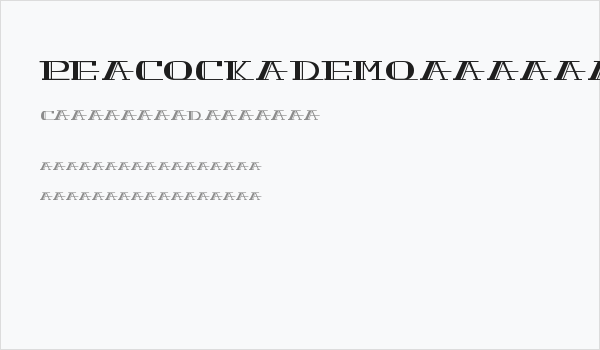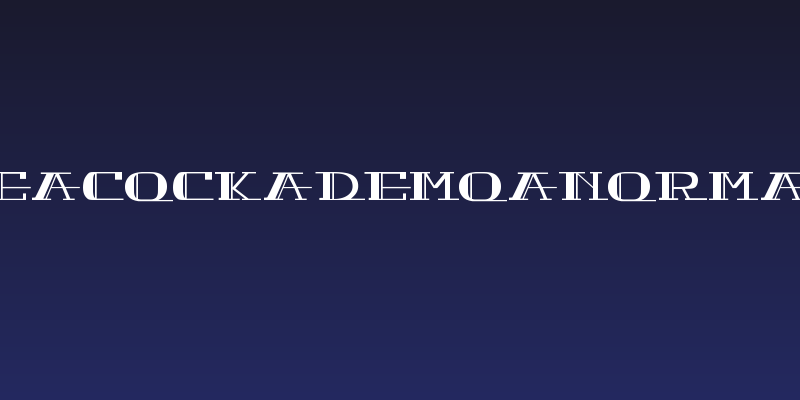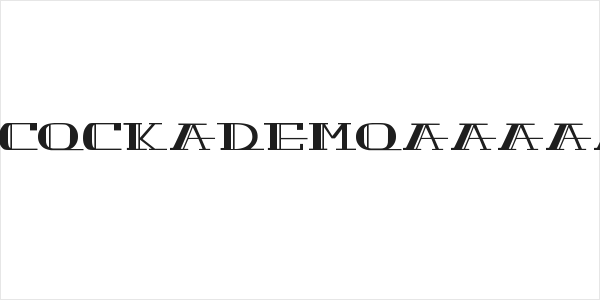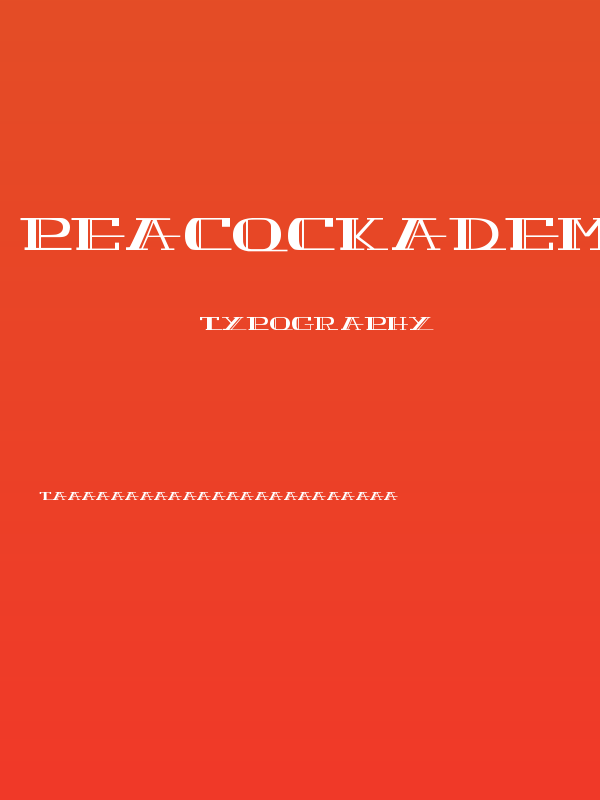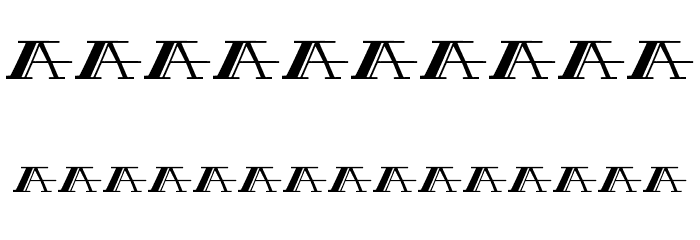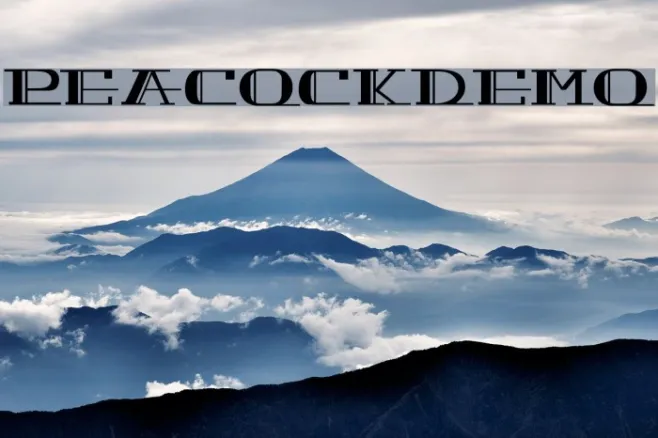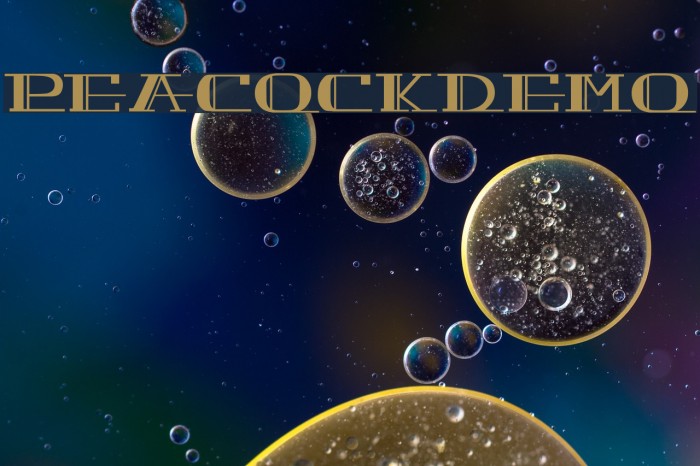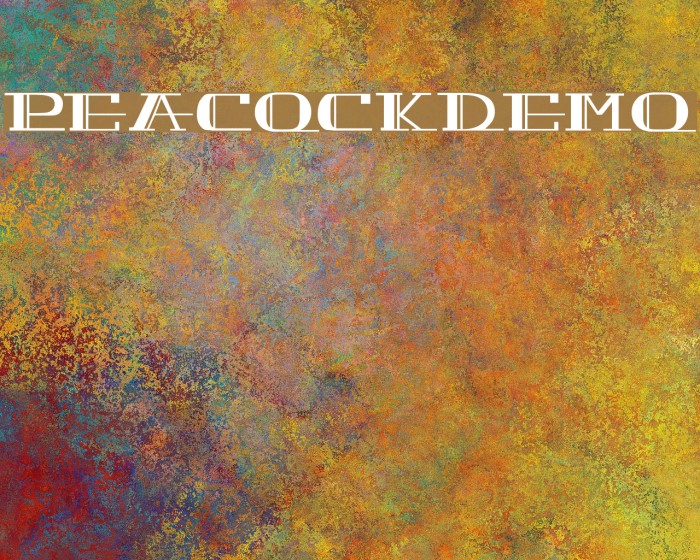
PEACOCK DEMO normal Font
PEACOCK DEMO normal Description
This font features a bold and striking design with a modern, geometric aesthetic. The characters are constructed with sharp angles and clean lines, giving it a futuristic and dynamic appearance. The uppercase letters exhibit a unique style with distinct cutouts and varying stroke widths, creating a sense of movement and energy. The font's design is highly decorative, making it suitable for attention-grabbing headlines and titles. Its bold presence is complemented by a medium contrast in stroke thickness, adding to its visual impact. The overall style is contemporary and innovative, ideal for projects that require a strong and memorable typographic statement.
| Proposed Projects | Ideal for branding, posters, headlines, and any project that requires a strong visual impact. |